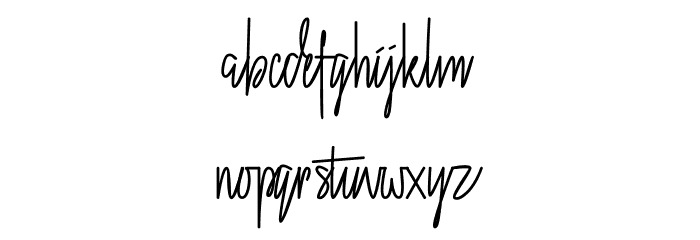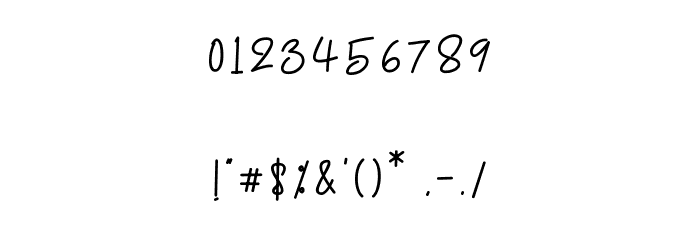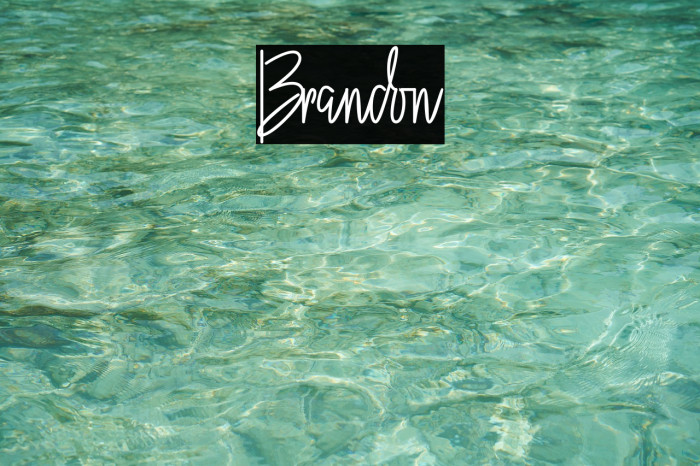
Brandon Font
This font features a handwritten style with a casual and playful appearance. The uppercase letters are tall and slightly narrow, with a distinct slant that adds a dynamic feel. The lowercase letters maintain a consistent flow, enhancing the handwritten aesthetic. Numbers and special characters are designed to match the overall style, ensuring cohesion across all elements. The strokes are thin, contributing to a light and airy look. This font is ideal for projects that require a personal touch or an informal vibe.
A playful, handwritten font with a casual and dynamic style.
- Proposed Projects: Ideal for greeting cards, personal invitations, casual branding, and social media graphics.
- Category: Handwritten
- Weight: Light
- Overall Style: Casual, Playful
- Use Case: Logos, Headlines, Informal Text